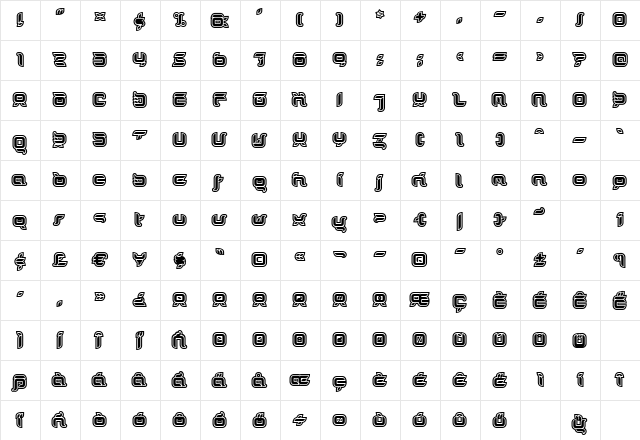
Doris OrangeOutline Regular
Design Context for Doris OrangeOutline Typeface
Doris OrangeOutline is built around its visual character rather than neutral utility — its distinctive forms are designed to make an impression at display sizes.
Font Pairing: Pair with a clean neutral sans-serif for body copy to let Doris OrangeOutline's character lead without overwhelming the composition.
Pro Tip: Treat Doris OrangeOutline as the centrepiece of your typographic hierarchy. One strong heading set in a decorative face can carry an entire layout.